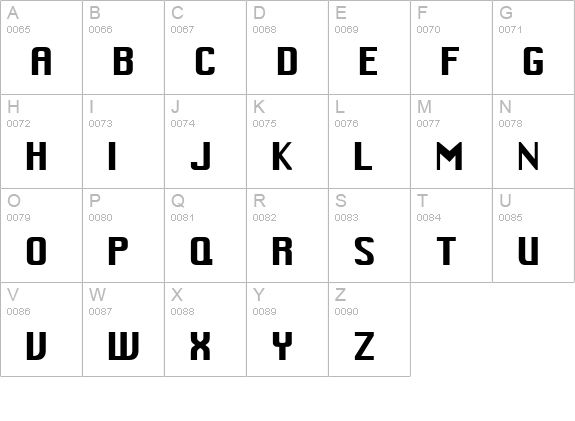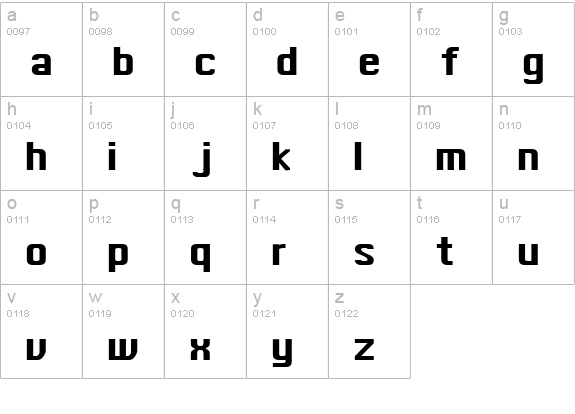
MacType Font Details
MacType is a stunning font that brings elegance and style to any project. With its sleek and modern design, it is sure to capture attention and leave a lasting impression. This versatile font is perfect for both professional and creative endeavors, making it a must-have for designers, artists, and typographers alike. One of the best things about MacType is that it is completely free. You read that right – this high-quality font can be downloaded without any cost. This is a fantastic opportunity for anyone looking to enhance their design work without breaking the bank. To get your hands on MacType, simply head over to FontsMarket.com. There, you will find a wide range of fonts available for free download, including MacType. FontsMarket.com is a trusted source for fonts, ensuring that you can download this remarkable font with ease and confidence. Whether you're creating a logo, designing a website, or working on a print project, MacType will add that extra touch of sophistication. Its clean lines, smooth curves, and attention to detail make it a standout choice for any design endeavor. Don't miss out on the chance to elevate your work with MacType. Download this incredible font today from FontsMarket.com and experience the power of great typography, all without spending a dime.